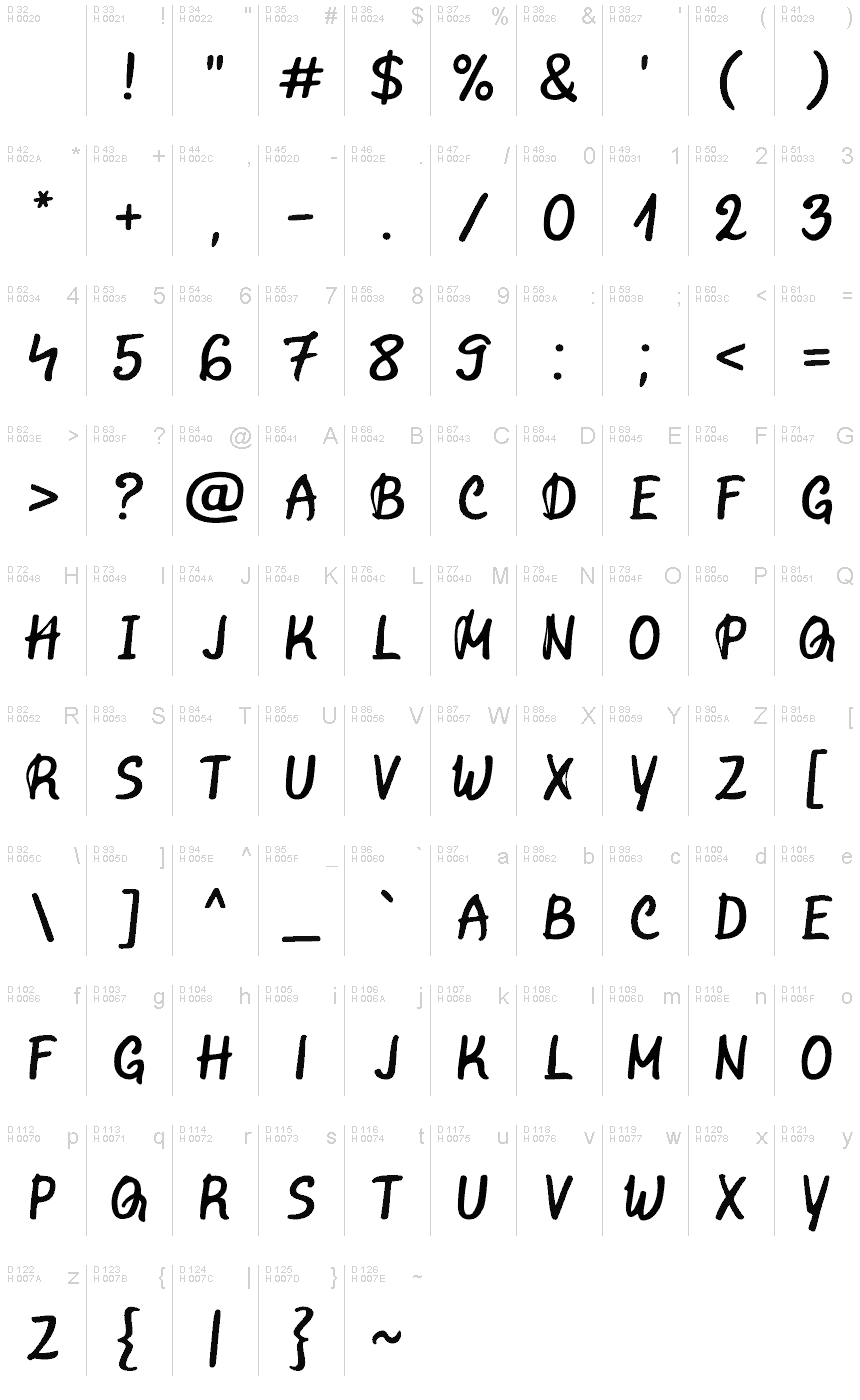
Marvelous Rex Regular
Marvelous Rex, a captivating hand-drawn typeface by Pilcrowd, exudes the energetic charm of comic book lettering. This playful font boasts a distinct personality, with its bold, expressive strokes and whimsical curves that immediately grab attention. Marvelous Rex's dynamic aesthetic lends itself to a wide range of applications, from vibrant headings and eye-catching logos to playful branding and engaging packaging designs.
Versatile and adaptable, Marvelous Rex can seamlessly transition between bold display settings and more delicate script-inspired applications. Its versatility makes it an excellent choice for projects that require a touch of vintage comic book flair, adding a touch of nostalgia and personality to any design.